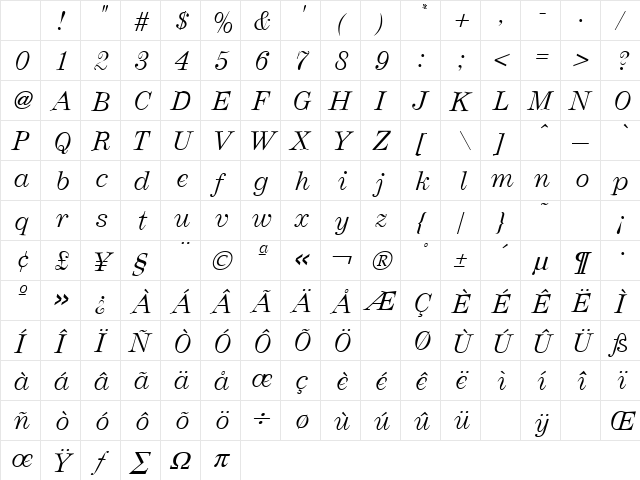
Andrich Minerva is a composed and adaptable typeface that performs quietly and consistently across a wide range of design contexts. The slanted form adds forward momentum and visual energy.
Pro Tip: Use Andrich Minerva for emphasis, pull quotes, and subheadings where its slanted energy can add rhythm to the layout.